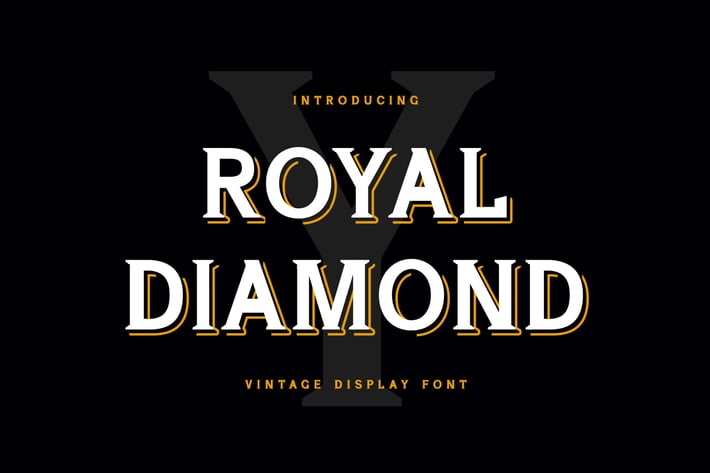
Royal Diamond Display Serif Font
Royal Diamond is a serif font that combines classic style fonts moderated with a touch of minimalist design, produces beautiful and elegant fonts, and is supported by ligatures and more font substitutes with all characters brought in will make you explore your design style more easily, with various alternative styles that allow for logos, posters, covers, main packaging, t-shirts, business cards, wedding cards and more, so what are you waiting for?